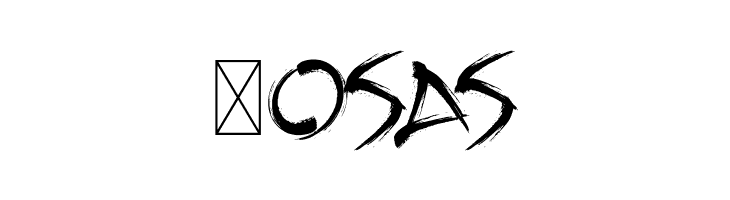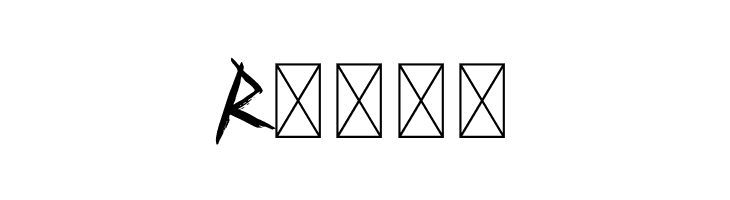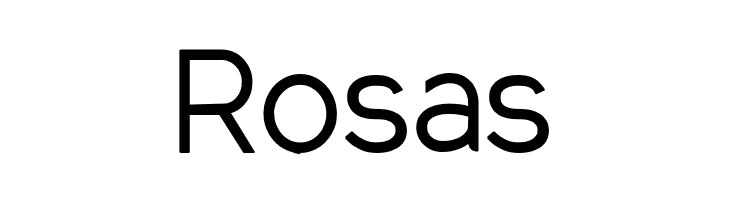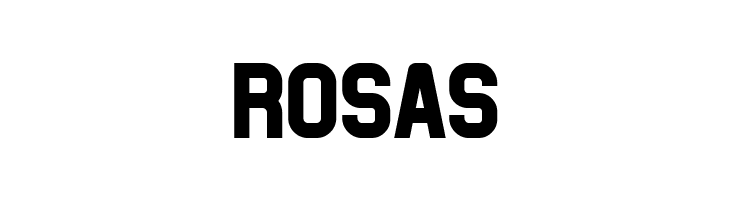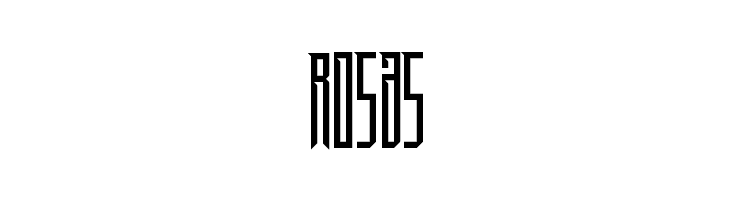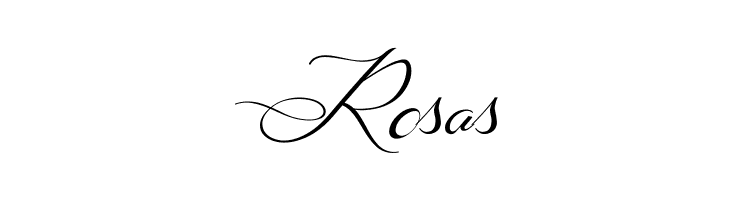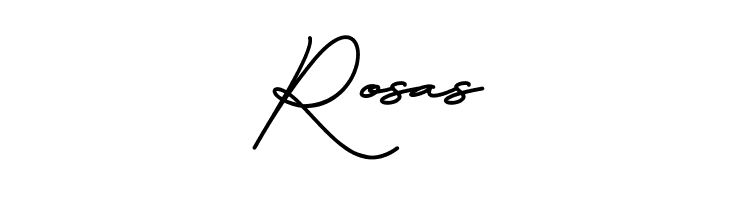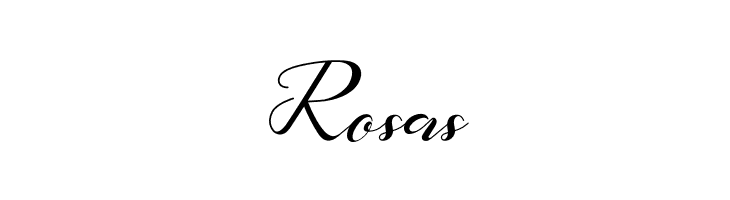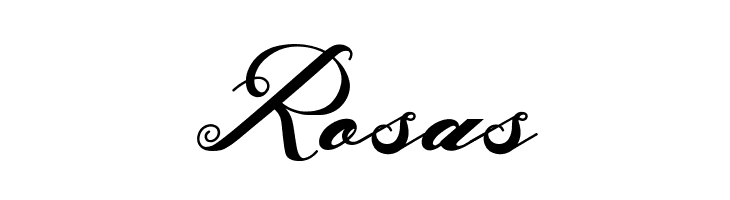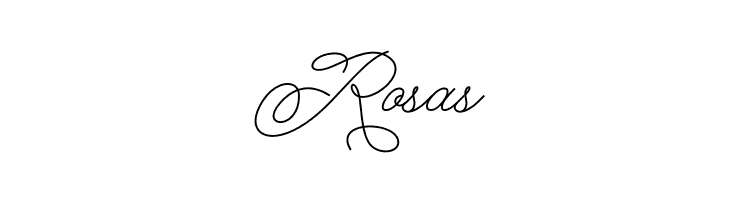
A dynamic, brush-style font with bold, expressive strokes.
A bold, brush-style font with dynamic, hand-painted strokes.
A bold, brush-style font with dynamic and expressive strokes.
An elegant script font with graceful curves and intricate details.
A bold, hand-drawn font with a rough, textured appearance and a dynamic, artistic style.
A modern, geometric sans-serif font with uniform stroke widths.
A bold, geometric sans-serif font with a modern, industrial feel.
An elegant, decorative script font with flowing, ornate characters.
A tall, narrow, and angular font with a modern, geometric style.
An elegant script font with flowing, interconnected letters and intricate swashes.
A dynamic and elegant script font with fluid, connected strokes.
A bold, flowing script font with a handwritten style.
An elegant and flowing script font with delicate, intricate letterforms.
A decorative script font with elegant swirls and loops.
An elegant script font with flowing, interconnected letters and a classic calligraphic style.
An elegant script font with flowing cursive style and intricate swashes.
An elegant script font with intricate swirls and flourishes.
An elegant script font with intricate flourishes and smooth cursive style.
A cursive script font with elegant, flowing letterforms and smooth strokes.
A playful, handwritten script font with smooth, flowing characters.
A modern, geometric font with bold lines and sharp angles, perfect for striking designs.
A playful, handwritten font with tall, narrow letters and rounded edges.
A modern, geometric font with thin lines and a sleek, futuristic style.
A bold, playful font with rounded edges and even spacing.
A charming and elegant handwritten script font with fluid, connected strokes.
A playful, handwritten script font with dynamic strokes and expressive characters.
A bold, expressive handwritten font with brush-like strokes.
A bold, distressed font with a vintage, textured appearance.
A bold, dripping font with a horror-themed aesthetic.
A bold, energetic font with dynamic brush strokes and irregular letterforms.
A decorative and artistic font with elongated, detailed letterforms.
A lively and dynamic script font with elegant, flowing connections.
A modern, handwritten font with a casual and artistic style.
A bold, textured font with a playful and artistic design.